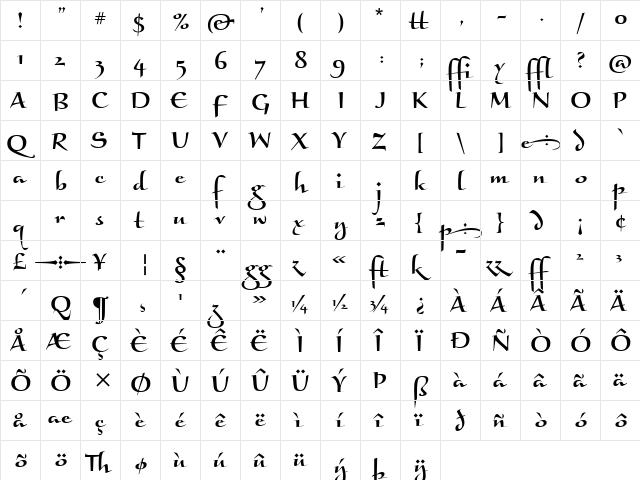
Braganza ITC Bold Font Preview
Braganza ITC Bold
Design Context for Braganza ITC Typeface
Braganza ITC is a composed and adaptable typeface that performs quietly and consistently across a wide range of design contexts. Its bold stroke weight gives it real presence on the page.